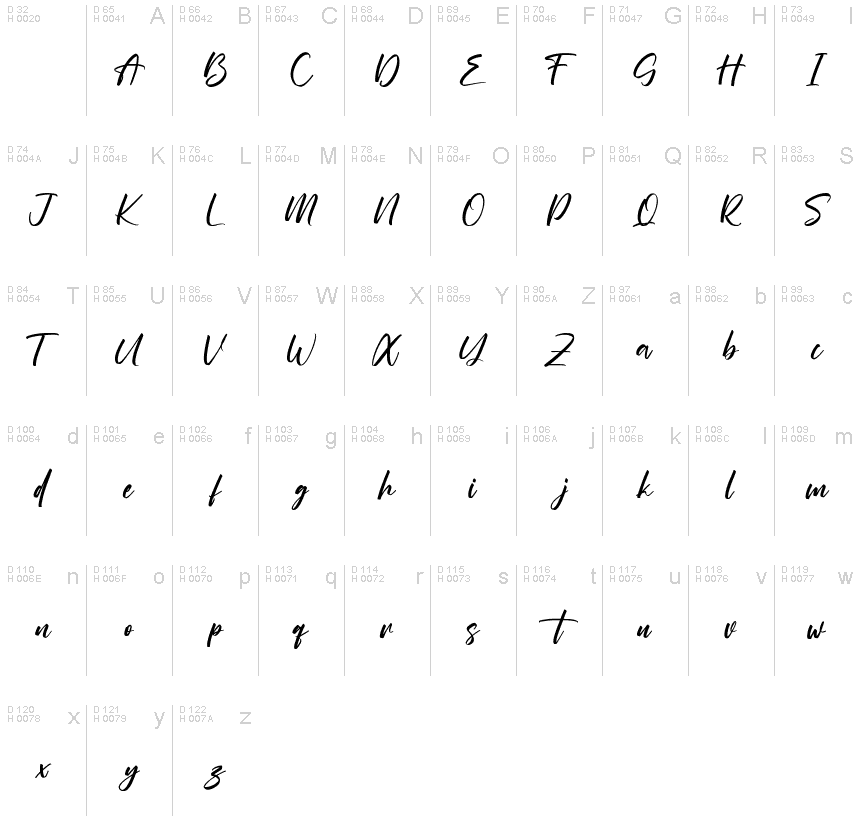
Edward Peters Free Regular
Edward Peters, a semi-light handwritten font by Maulana Creative, adds a touch of authenticity to your designs. Its marker-style strokes give a personal, handcrafted feel that's perfect for projects requiring an artistic and organic touch. Use Edward Peters for branding campaigns that want to convey a sense of uniqueness and creativity. This versatile font is suitable for various projects such as logos, invitations, packaging designs, and social media graphics. Let Edward Peters bring your designs to life with its charming and expressive character.